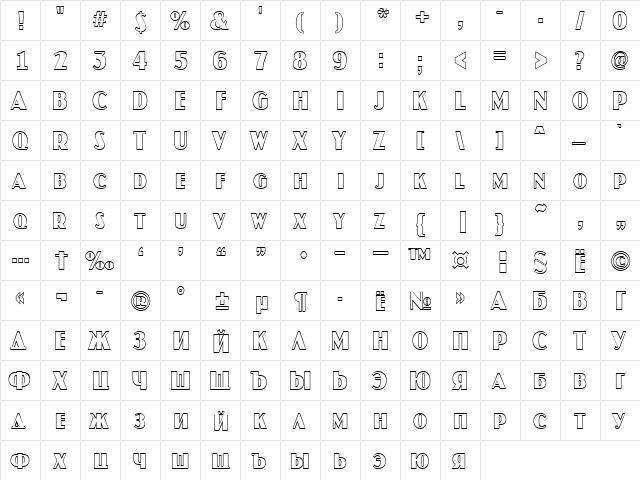
a_JasperCapsOtlNr Regular Font Preview
a_JasperCapsOtlNr Regular
Design Context for a_JasperCapsOtlNr Typeface
a_JasperCapsOtlNr takes a measured approach to typography — its balanced proportions and neutral character make it a reliable workhorse for both digital and print work.